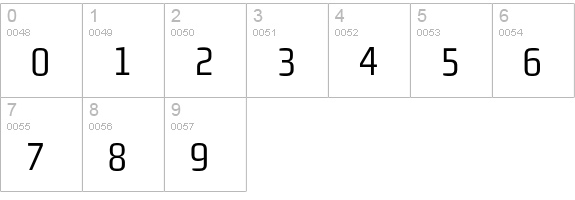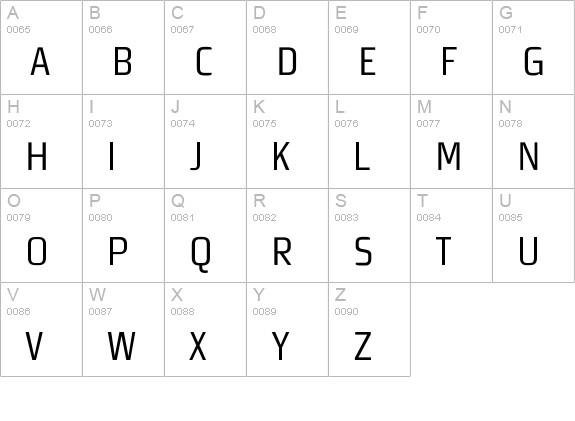
MorganSansCond RegularLining Font Details
MorganSansCond RegularLining is a sophisticated and modern typeface that exudes elegance and professionalism. With its clean lines and sleek design, this font is perfect for a wide range of applications, from branding and advertising to web design and print materials. The balanced proportions and subtle curves of MorganSansCond RegularLining make it a versatile choice for both headings and body text. Best of all, MorganSansCond RegularLining is available for free download at FontsMarket.com. This means you can easily access this high-quality font and enhance your projects without any additional cost. Don't miss out on the opportunity to elevate your designs with the timeless beauty of MorganSansCond RegularLining - download it today and see the difference it can make!